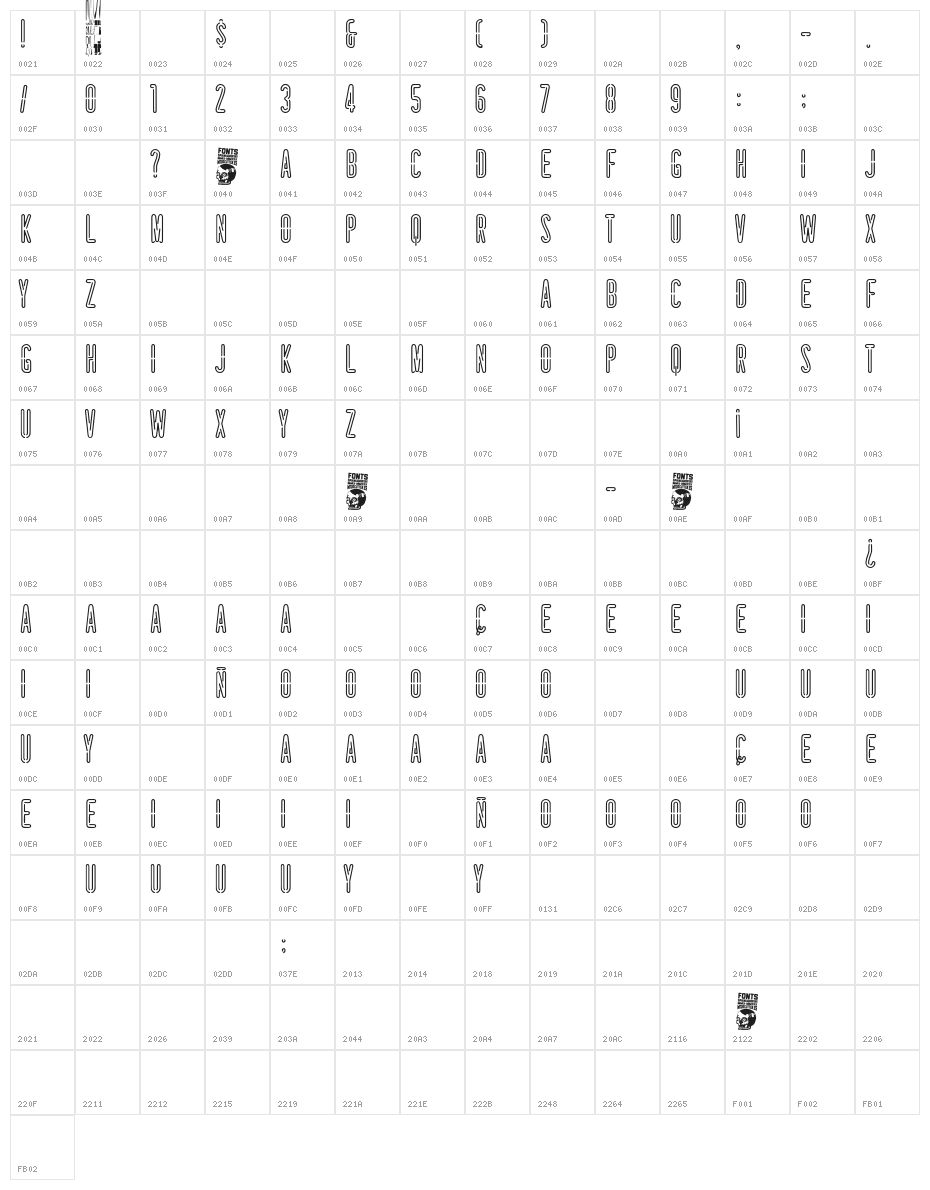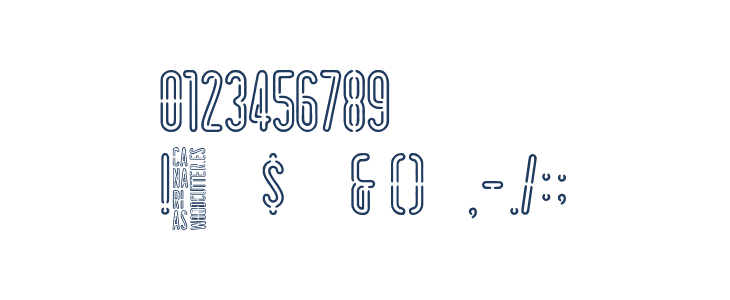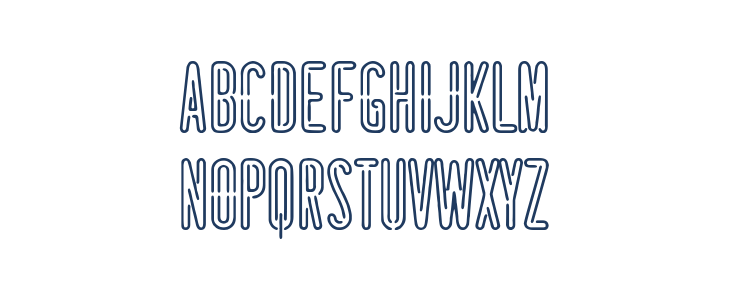
Canarias Font
Canarias Description
A geometric, outlined sans-serif font with tall, narrow letterforms and rounded corners, featuring consistent stroke width and open, airy counters. The characters are constructed with double-line strokes, giving a modern, technical appearance.
| Use Case | Headlines, Logos, Display text |
| Proposed Projects | Posters, signage, branding, modern packaging, event invitations, tech-related graphics. |